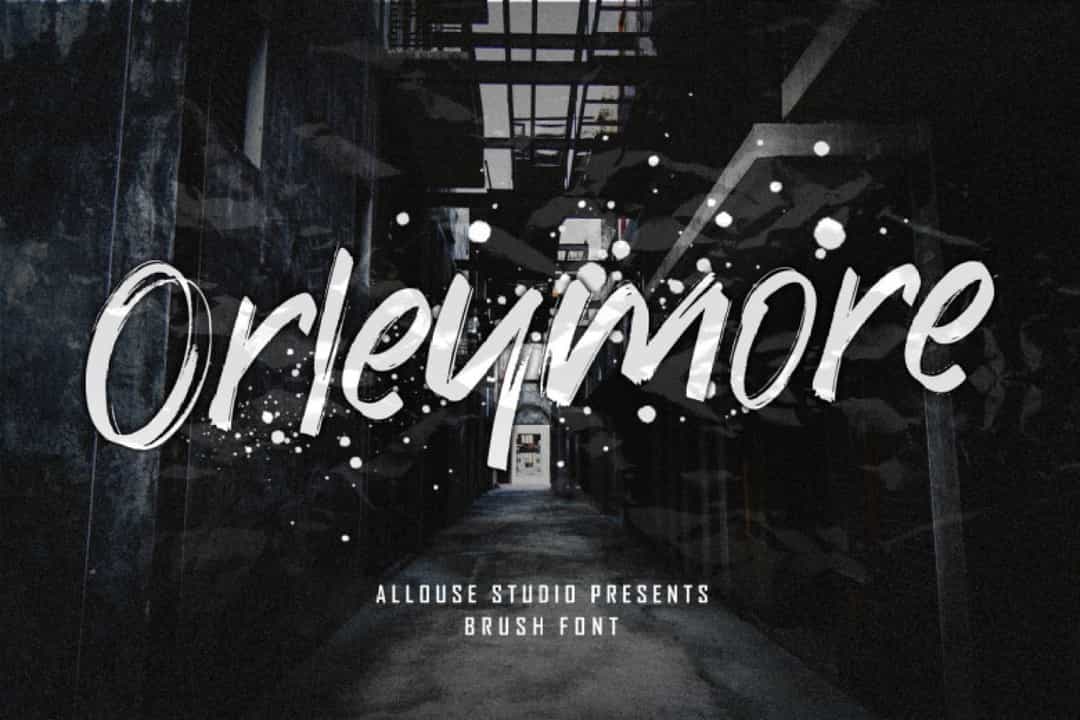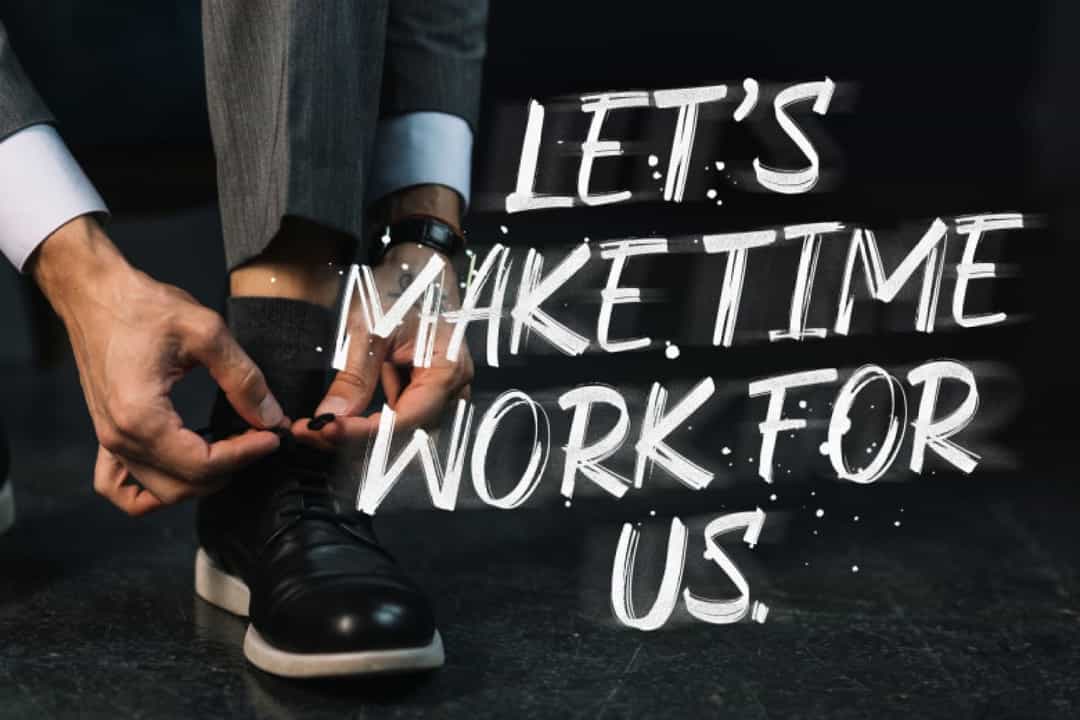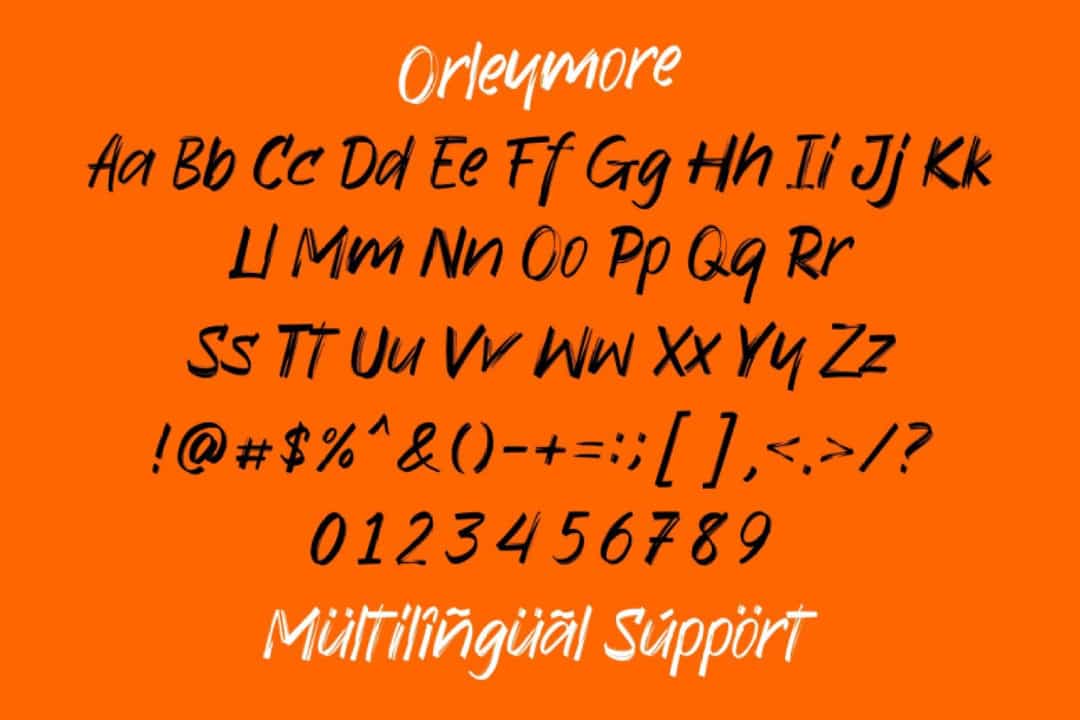
Orleymore Brush Font. Orleymore is ideal for branding, packaging and product packaging projects as well as magazines weddings social media posts or to simply add text over backgrounds. Compatible with TTF this font supports multiple languages.